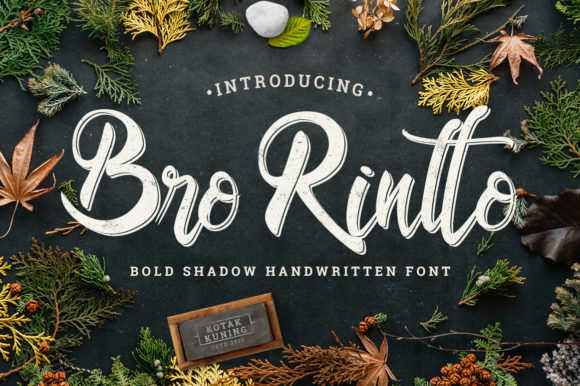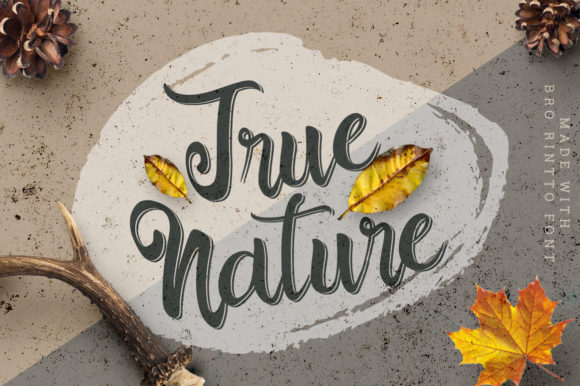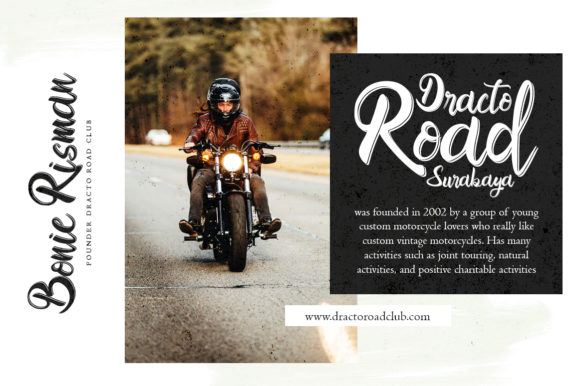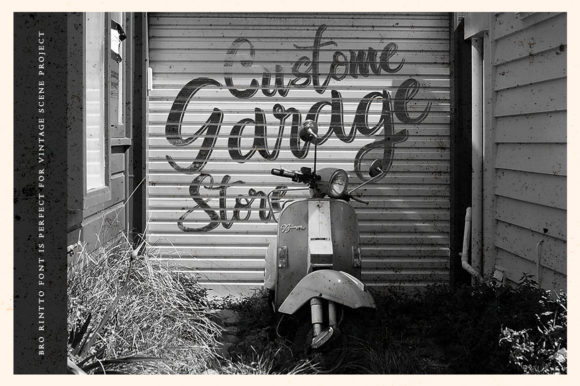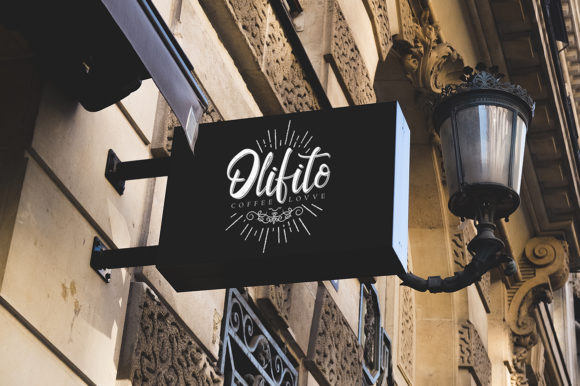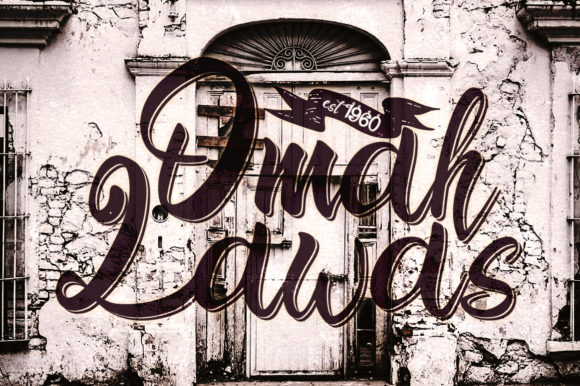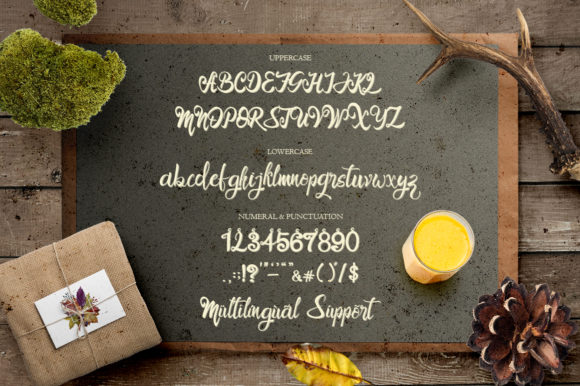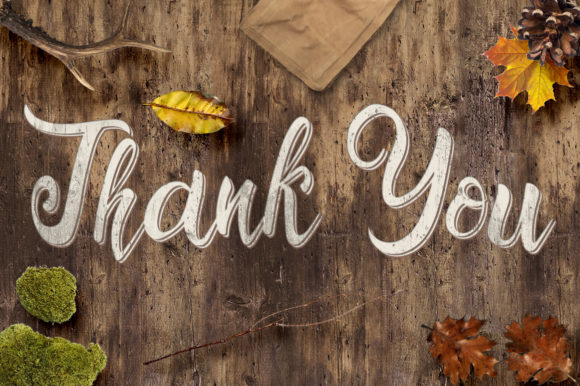
Bro Rintto Font
The Bro Rintto is an unique handwritten font. It has a bold and shadow style which adds an elegant, yet striking style to your designs.
It can be used for logos & branding, photography, watermarks, social media posts, advertisements, invitations, product designs, labels, stationery, wedding designs, product packaging, special events or anything that needs a handwritten feel.